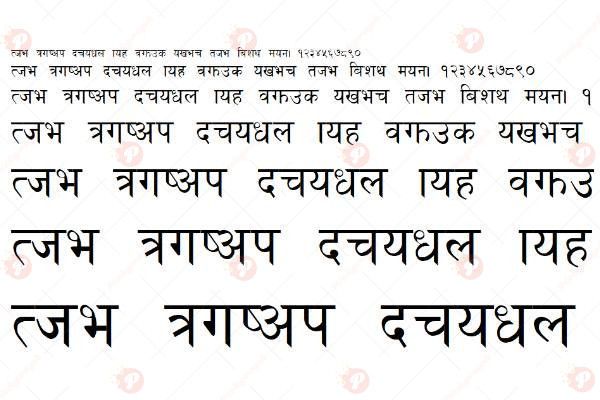
The Himalaya Font is an elegant and decorative typeface inspired by the beauty and strength of the Himalayas. With its artistic letterforms and cultural essence, this font is perfect for logos, invitations, posters, banners, packaging, book covers, social media graphics, and traditional projects.
It blends heritage with modern usability, making it a versatile choice for both digital and print media. Designers looking to add a unique cultural or decorative touch to their work will love the Himalaya Font.
Style: Decorative / Traditional / Elegant Typeface
Bring timeless beauty and cultural elegance to your designs with the Himalaya Font.